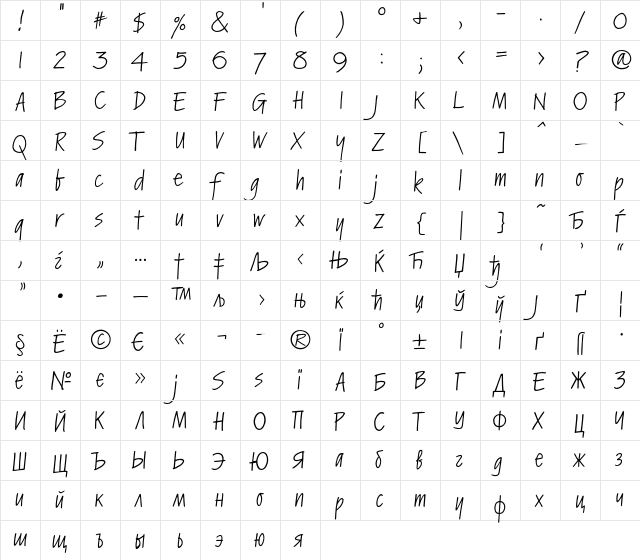
KremlinC Regular
Design Context for KremlinC Typeface
KremlinC takes a measured approach to typography — its balanced proportions and neutral character make it a reliable workhorse for both digital and print work.